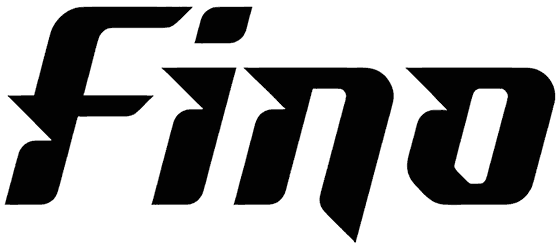
Fino Font
Nowadays, you have only a few moments to impress the audience and persuade them to follow your magazines, web pages, headlines, logos, or social media posts, and in this way, a futuristic logo font such as Fino can help you to achieve this purpose. This speedy font comes with a unique style and carries a vibe of dynamic, tenderness, innovation, or prominence.
Fino is a cool and sweet display font with a fun feel. Get inspired by its dynamic look.